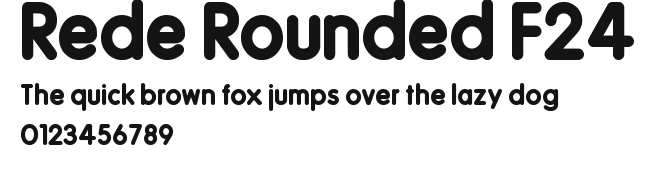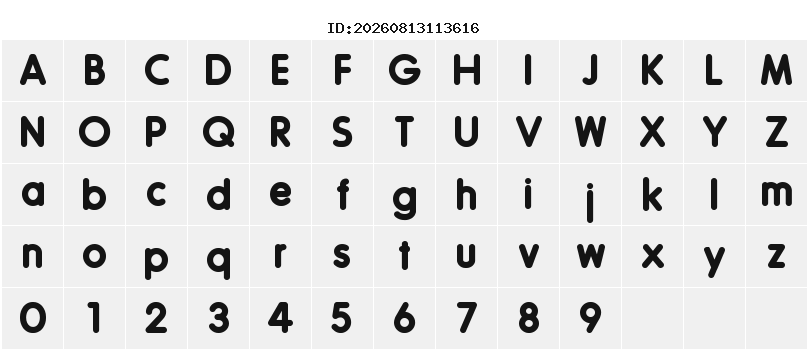
Rede Rounded F24.ttf is a modern, elegant sans-serif font designed for ultimate readability and visual harmony. Perfect for branding, headlines, web design, and print materials.